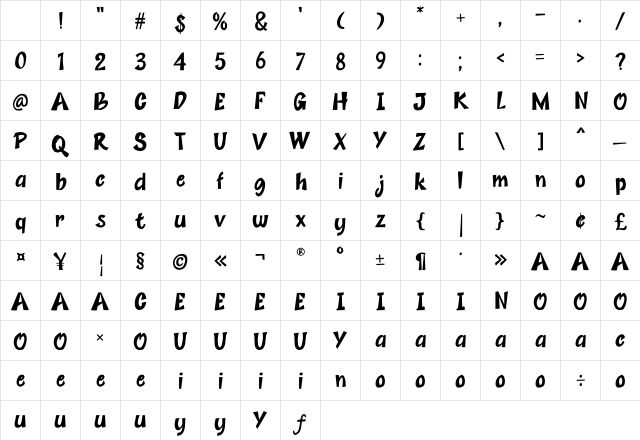
Complete Solid Newborn Regular glyph index. Displaying only characters natively supported by Solid Newborn Regular font.
Solid Newborn is a composed and adaptable typeface that performs quietly and consistently across a wide range of design contexts.